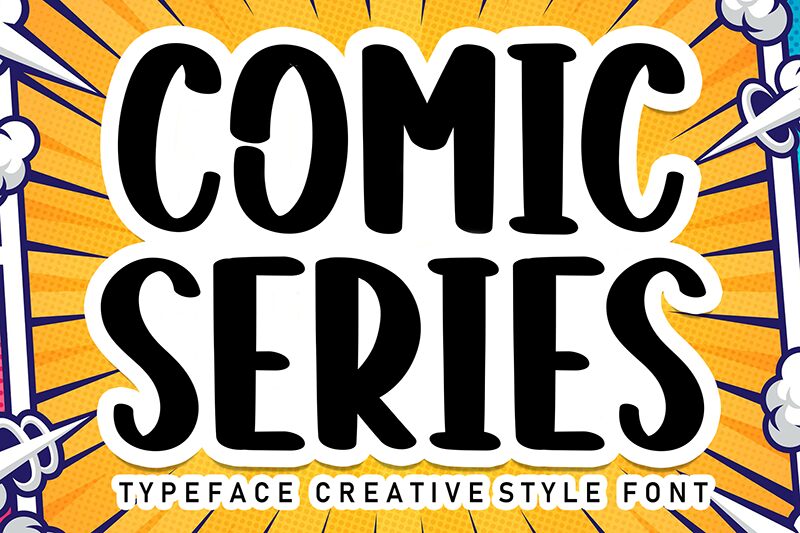
Comic Series
Comic Series font by Andi Moz is a free display comic font with a mix of casual, expressive, and friendly traits. Its dominant rounded edges bring a nostalgic retro-inspired vibe to its overall style. Packed with bold and thick strokes, this type will guarantee the reader’s ideas come across and are understood in large texts.
Comic strips, magazines or books covers, book pages design, storyboards for movies or video games are usually designed using such fonts. Other applications include packaging cultural products related to comics & movies like toys, posters, and much more.